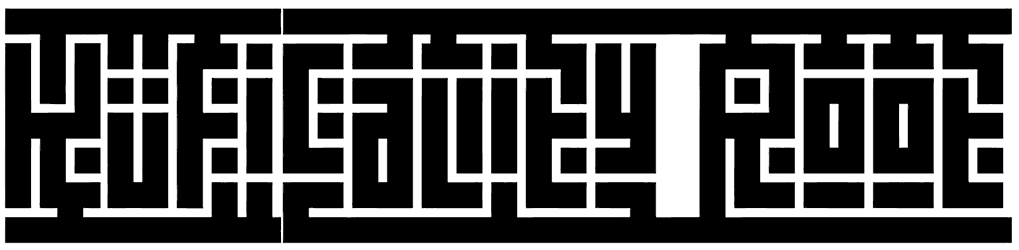
Kuficality Root Font
The Kudicality Root is a less-seen yet well-designed font that is placed in the group of maze fonts. This spectacular Arabic font is a good choice for titles, posters, and tattoos whose goal is to engage the viewer uniquely.
When you look at the Kuficality Root font, it plays with your eyes, and there is a slight challenge to configure the letters. The letters in this construction font are colored shapes that look like a maze on a background.